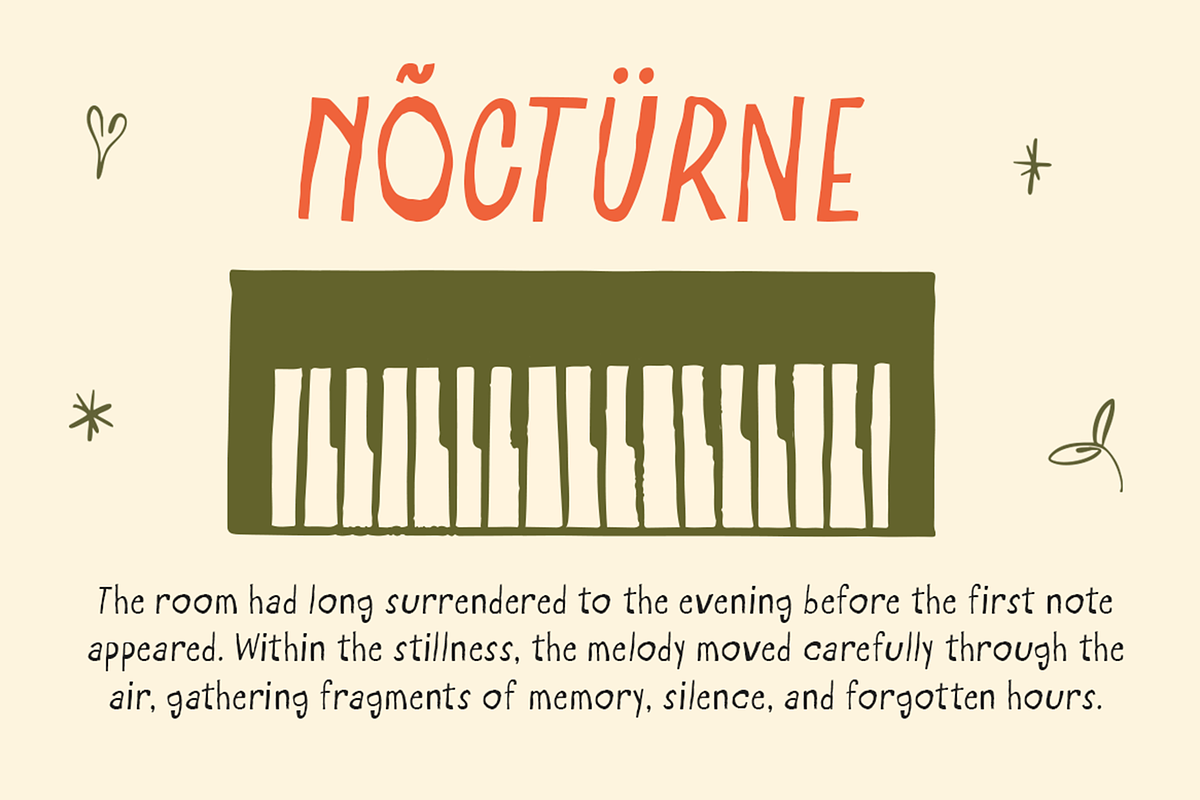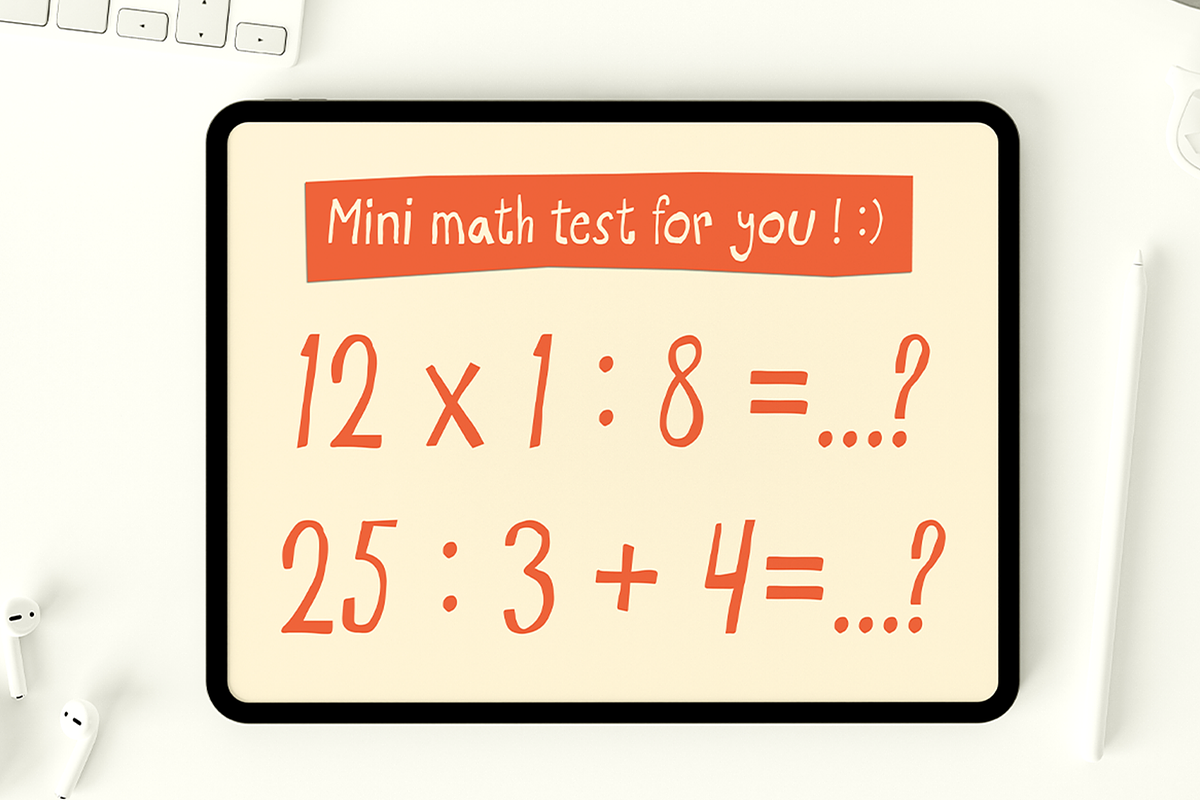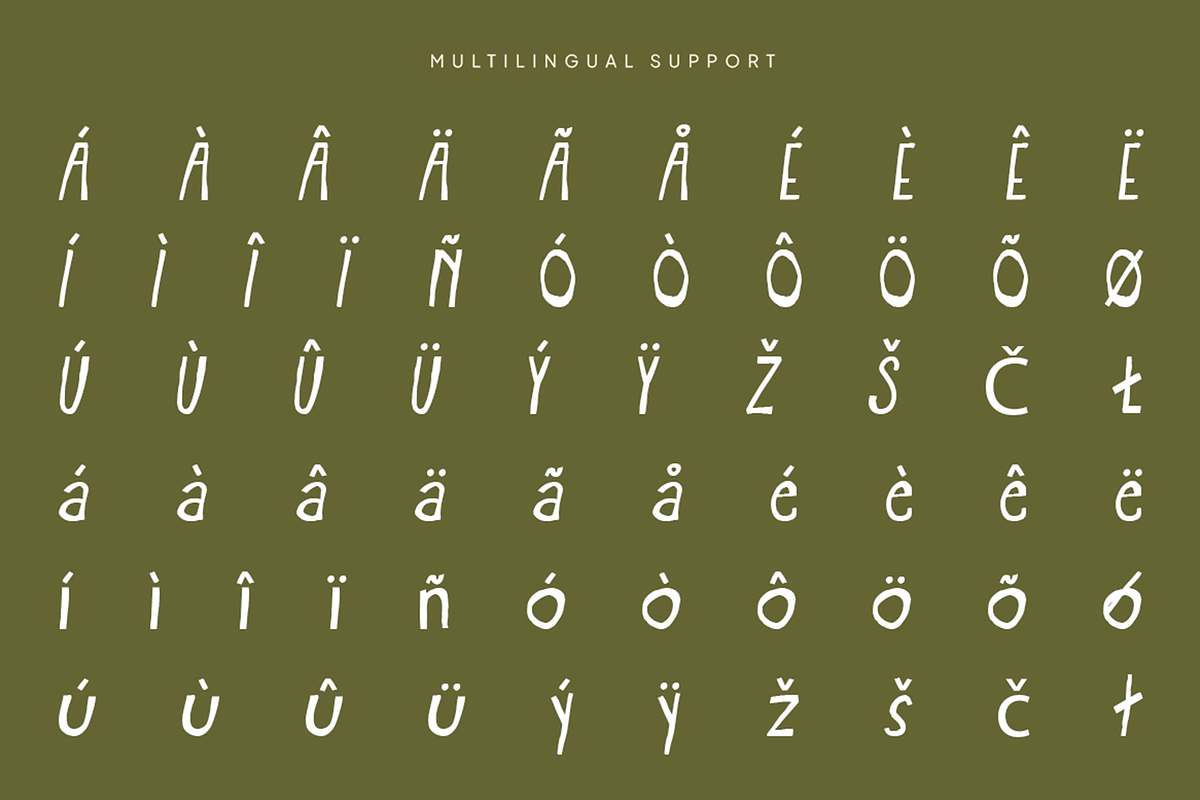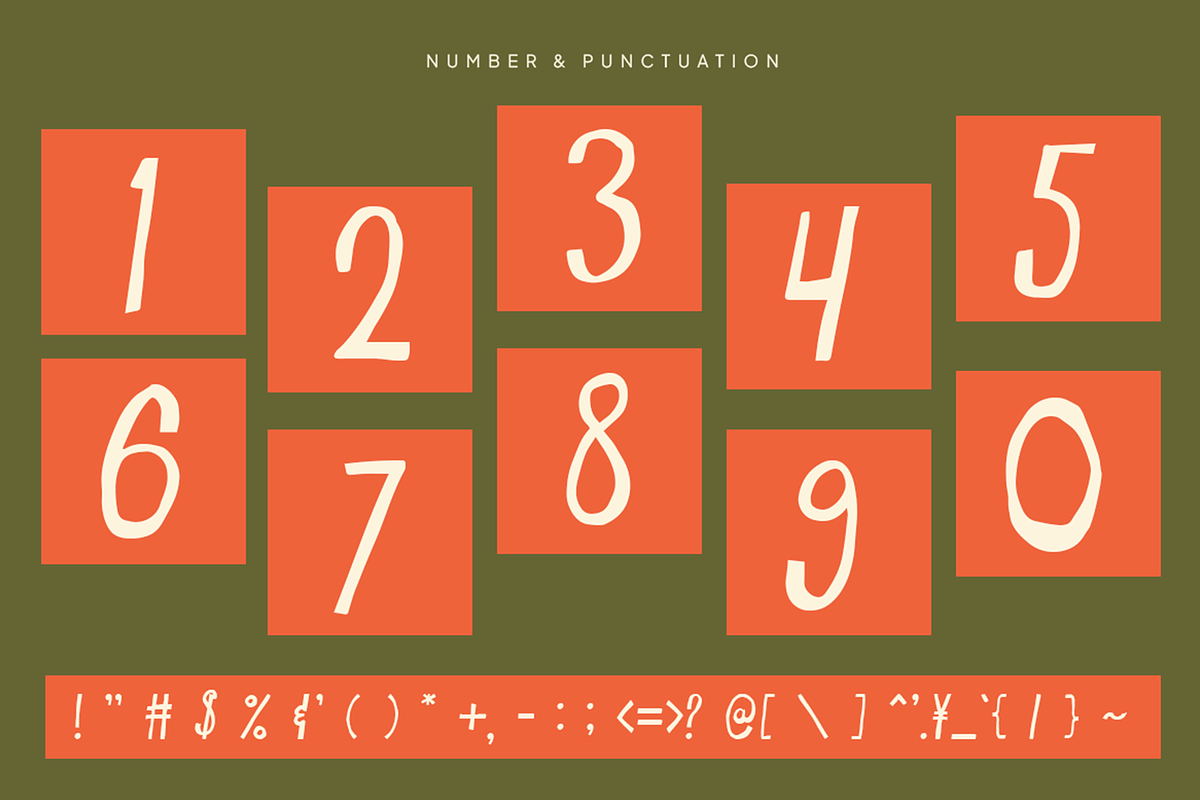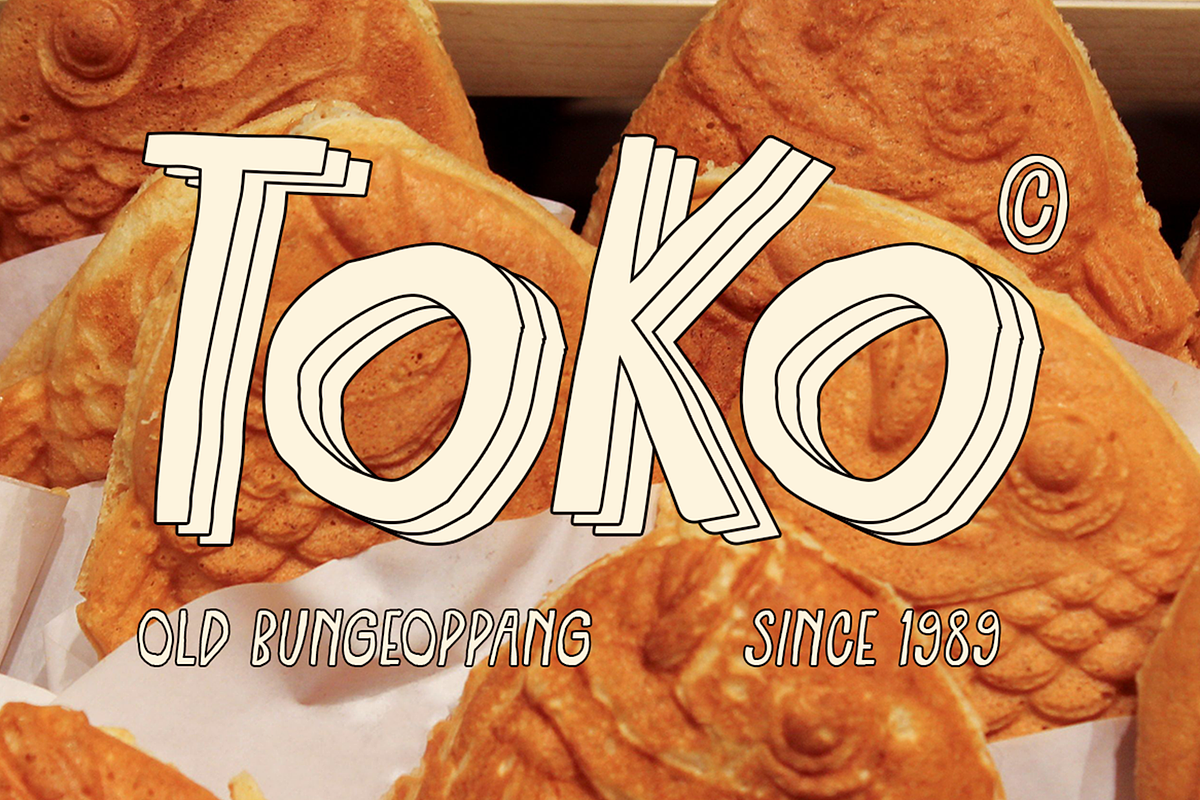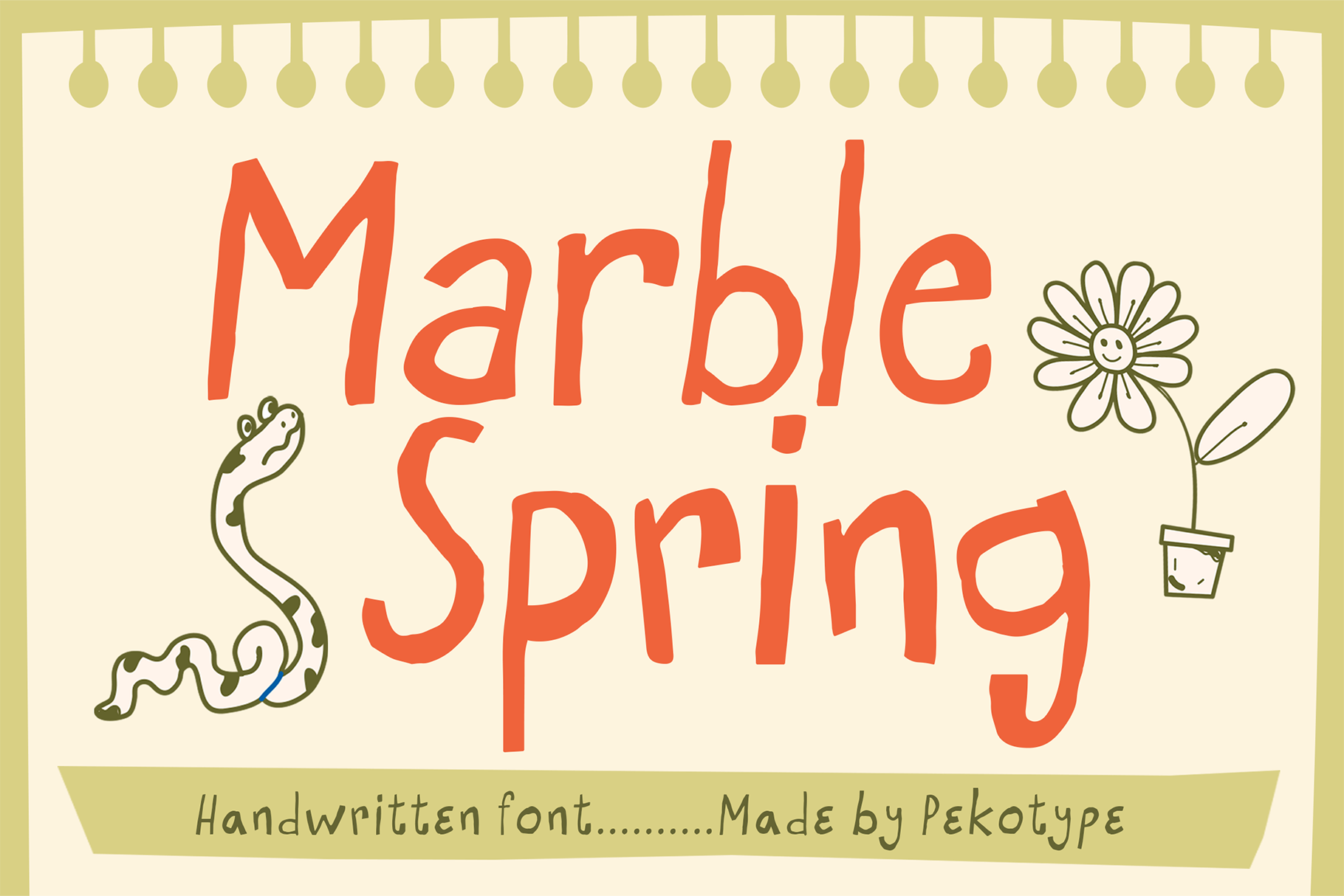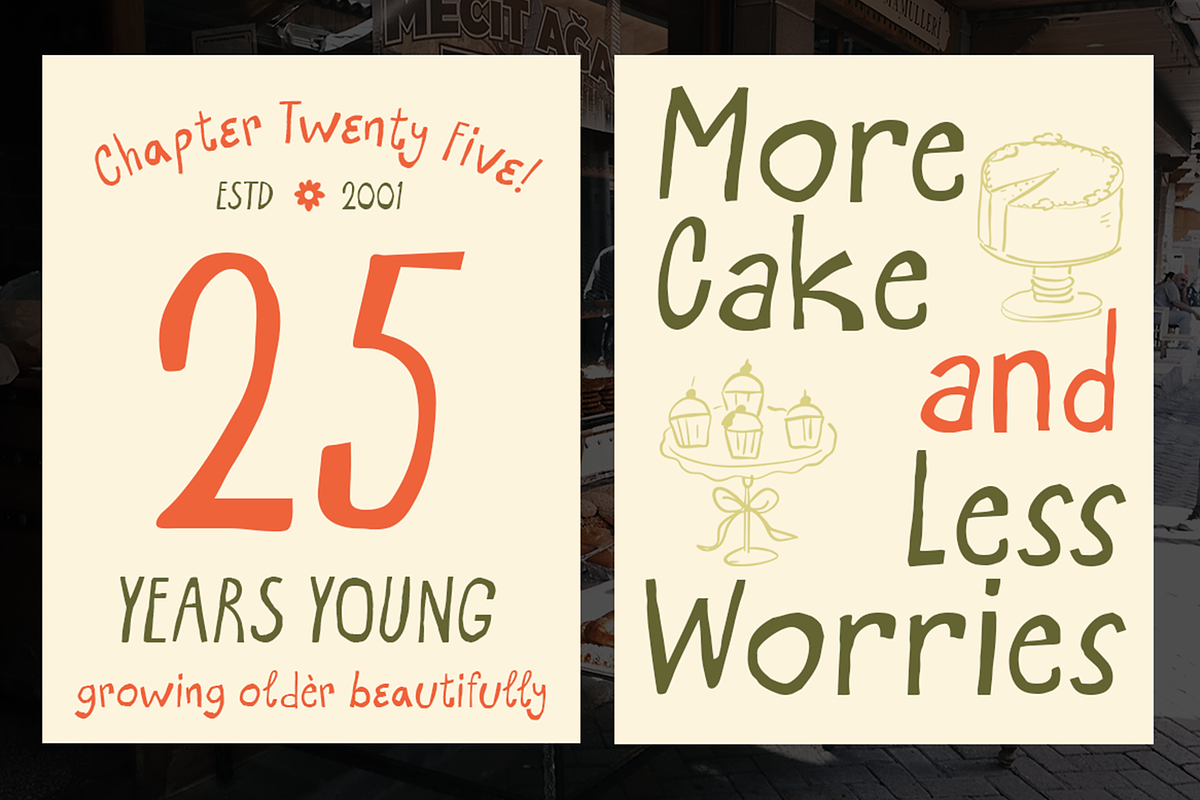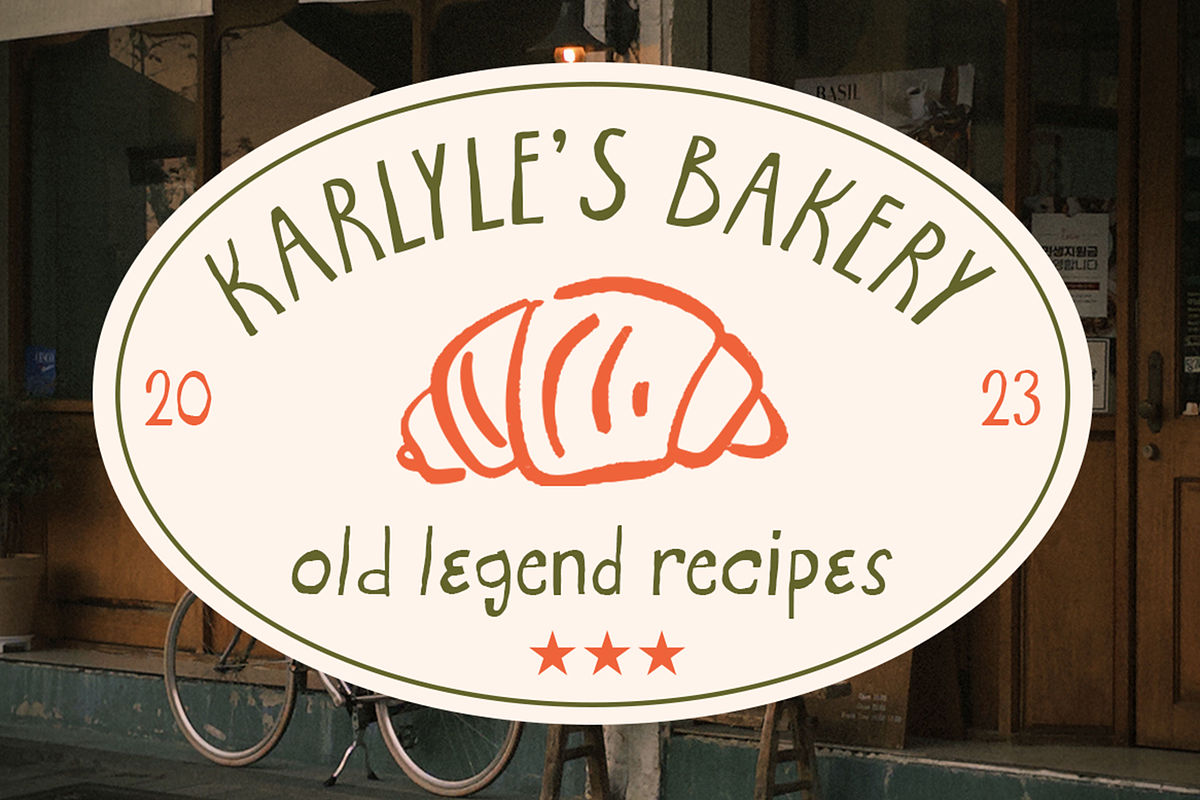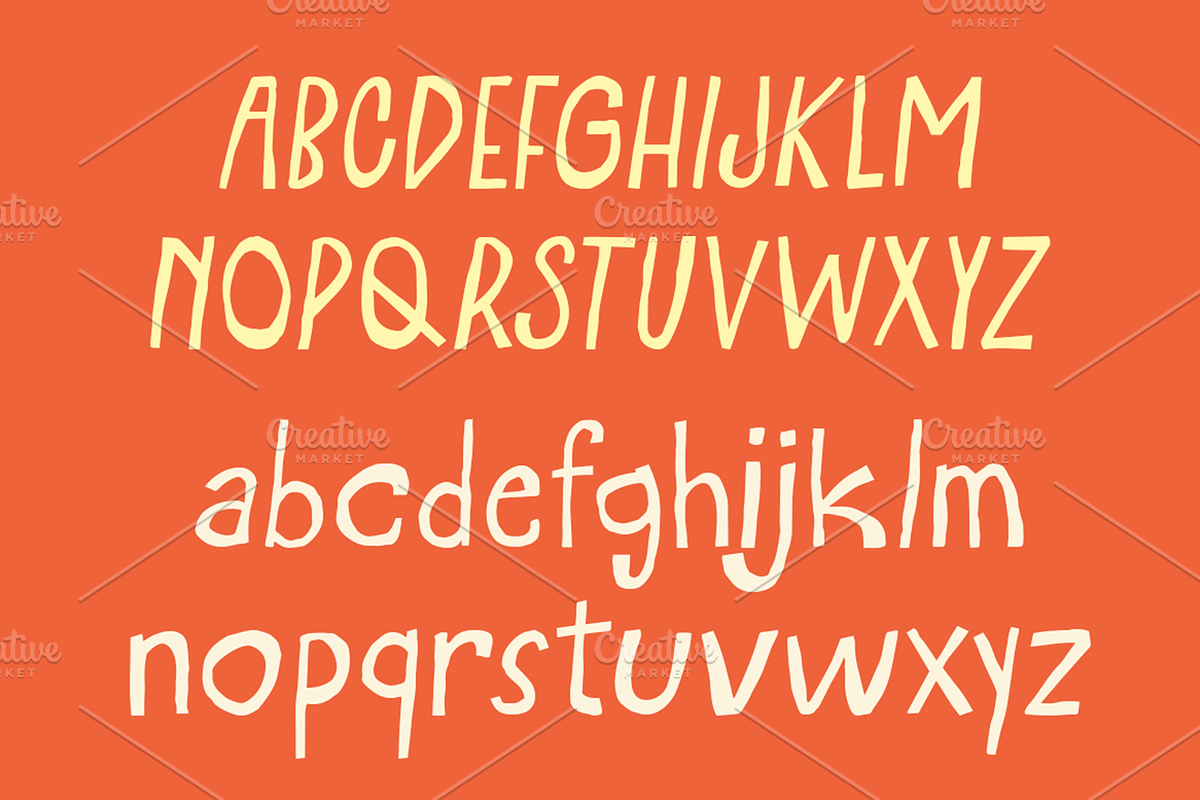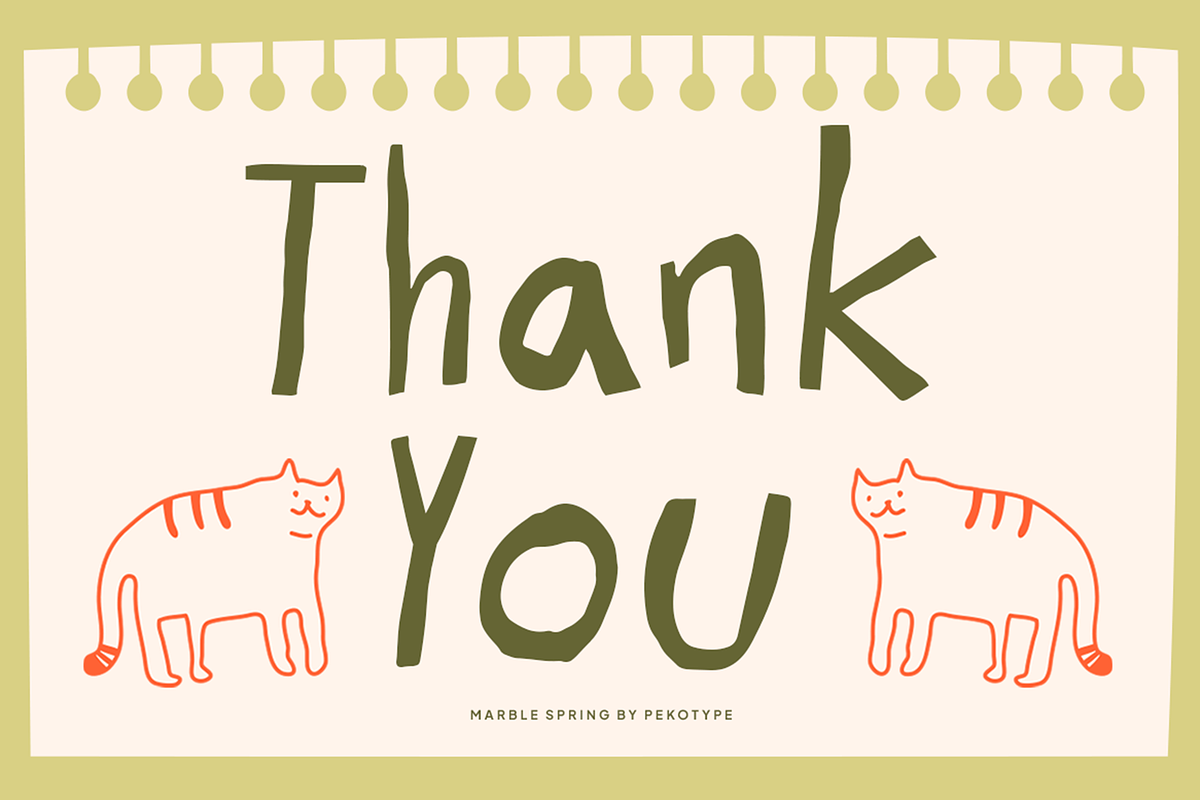
Marble Spring Handdrawn Playful Font
MARBLE SPRING is a playful handwritten display font inspired by hand-drawn lettering and everyday creativity. Its natural strokes and friendly style give every design a warm, personal touch that feels relaxed, fun, and easy to enjoy.
Perfect for branding, bakery logos, packaging, greeting cards, posters, social media, café menus, children's projects, stationery, quotes, and creative crafts. MARBLE SPRING is a great choice when you want your design to feel cheerful, handmade, and full of personality.
Numbers, Symbols, & Punctuation